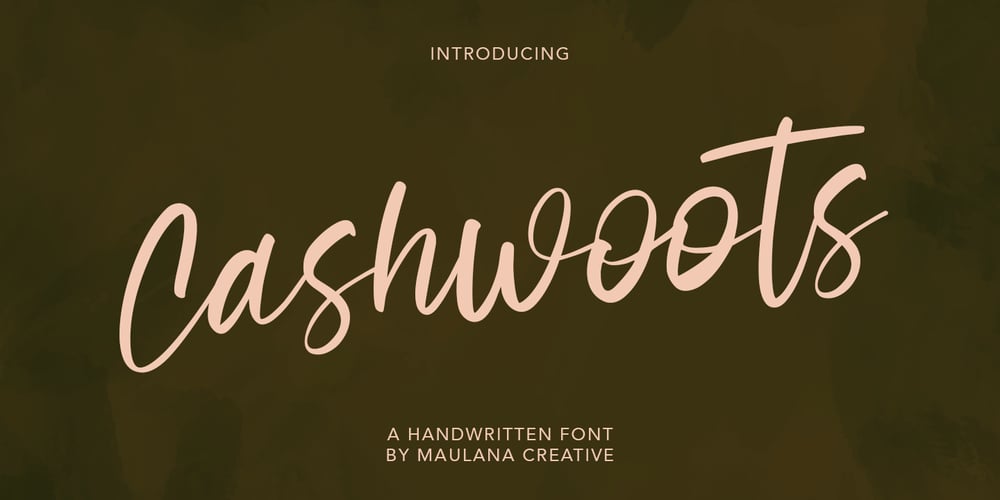
Cashwoots
Cashwoots font
Cashwoots Font Family was designed by Gilang Maulana and published by Maulana Creative. Cashwoots contains 1 styles and family package options. Cashwoots is a handwritten script font, With fancy and fun characters. It has Opentype features of ligatures, makes it a perfect choice for branding and digital designs. Use this font for logos, social media, websites, blogs, instagram, social media, business cards, branding, and more! Cashwoots font support multilingual more than 100+ language. and good pair for your secondary text font with sans or serif. Make a stunning work with Cashwoots handwritten script font. Cheers, MaulanaCreative